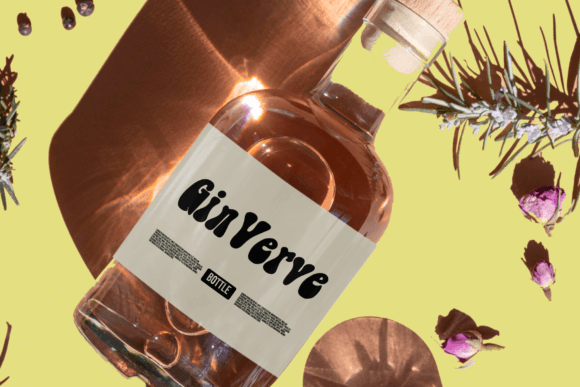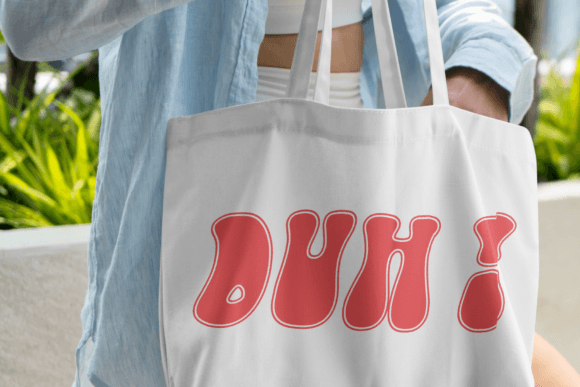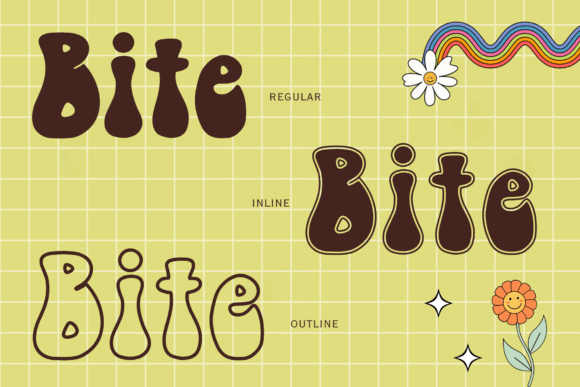
Introduction to Funky Bite Font
Do you remember the thrill of browsing through your favorite music websites in the early 2000s, discovering new bands and artists with their quirky album covers and posters? The Y2K era was all about embracing boldness and individuality, and the design world was no exception. It’s in this spirit that the Funky Bite Font was born, a high-quality design resource that captures the essence of that vibrant era.
As a designer, you know the value of having the right tools at your disposal to bring your creative project to life. And when it comes to adding a touch of retro charm to your designs, the Funky Bite Font is an invaluable resource. With its transparent background and free download, you can easily integrate it into your projects, from posters to album covers. Get ready to unleash your inner designer and add a dash of Funky Bite Font’s lively style to your next creative project.
Key Features of Funky Bite Font
- Unique, hand-drawn design with a high level of detail, making it a valuable design resource for creative projects.
- Features a modern, fun, and quirky style, making it perfect for designs that require a funky and playful touch.
- Designed to be highly legible, even at small font sizes, ensuring that it remains readable in various creative projects.
Honest Review: Funky Bite Font
As a designer, I’m always on the lookout for high-quality design resources to elevate my creative projects. Recently, I stumbled upon the Funky Bite Font, and I’m excited to share my honest review with you.
What works well: ✨ The Funky Bite Font is a great addition to any design project, offering a unique and playful style that’s perfect for adding some personality to your work. The font is highly versatile, suitable for a wide range of applications, from branding and advertising to editorial and digital design.
The font comes in a variety of weights and styles, making it easy to customize and adapt to your specific needs. Plus, it’s available for free download, which is always a bonus.
- Wide range of applications
Limitations: ⚠️ One thing to note is that the font may not be suitable for all types of projects, particularly those that require a more formal or traditional tone. Additionally, some users may find the font to be too playful or whimsical for their taste.
Overall impression: I’m impressed with the Funky Bite Font, and I would definitely recommend it to designers looking for a unique and versatile font to add some creativity to their projects. Just be aware of the limitations and use it in projects where it will shine.
The Funky Bite Font is a versatile design resource that can be used in a variety of creative projects, including social media graphics, posters, and flyers. It’s perfect for adding a touch of personality to your designs.
Getting the Most Out of Funky Bite Font
To get the most out of Funky Bite Font, use it in conjunction with other design elements, such as bold colors and eye-catching graphics. Experiment with different font sizes and styles to add depth and interest to your design. You can also use the font in combination with other fonts to create a unique and creative look.